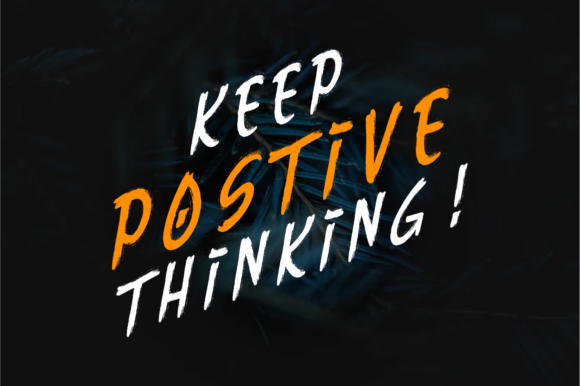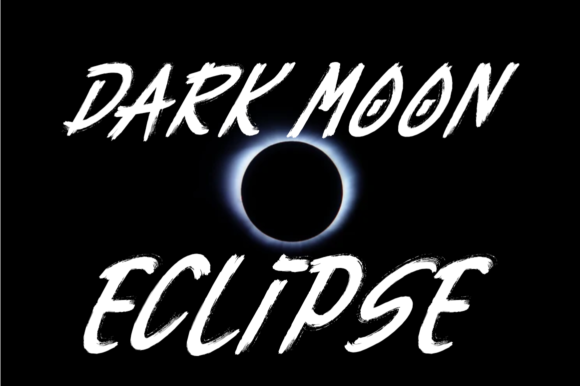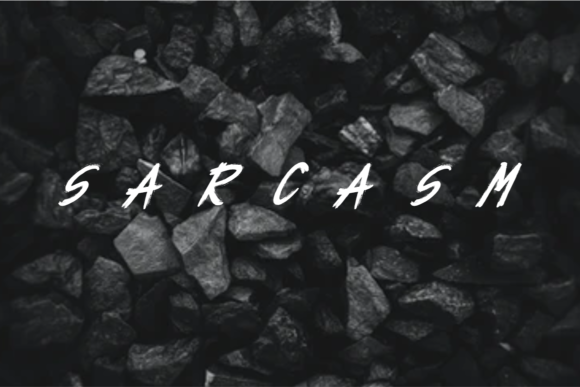
Introduction to Rebuilt Font
Have you ever stared at a blank canvas, trying to conjure up the perfect design to capture the essence of your creative project? For designers, this moment is all too familiar – the spark of inspiration that sets the wheels in motion. And for those looking to add an extra layer of personality to their work, there’s a game-changing font that’s sure to elevate their designs: the Rebuilt Font.
With its cool, brushed, urban display aesthetic, the Rebuilt Font is the perfect addition to any creative endeavor that requires a stronger personality. Whether you’re crafting posters, labels, apparel, or branding materials, this versatile font is sure to make a lasting impression. And the best part? It’s a high-quality, free download that can be easily integrated into your design resource arsenal.
For designers, the Rebuilt Font is a valuable asset that can breathe new life into even the most mundane projects. Its transparent background and sleek design make it the perfect complement to any creative vision. So why settle for a generic font when you can unleash the full potential of your design with the Rebuilt Font?
Key Features of Rebuilt Font
- Includes a transparent background option, allowing for seamless integration into various design settings.
- Features a large character set, including uppercase and lowercase letters, numbers, and punctuation marks.
- Designed at a high resolution of 300 DPI, ensuring crisp and clear typography in print and digital applications.
- Perfect for use in graphic design, web design, and other creative projects where a unique and stylish font is required.
- Includes a comprehensive character map, making it easy to access and use the various glyphs and symbols included in the font.
Honest Review: Rebuilt Font
As a designer, I’m always on the lookout for high-quality design resources to elevate my creative projects. Recently, I had the chance to try out the Rebuilt Font and here’s my honest review.
What works well: ✨ The font is available for free download, which is a huge plus. The transparent background makes it easy to customize and integrate into various design projects. The quality of the font is also top-notch, with crisp and clean lines that make it perfect for a wide range of applications.
- Customizable with various font styles
Limitations: ⚠️ While the font is high-quality, it may not be suitable for projects that require a specific, unique aesthetic. Additionally, the font may not be as extensive as some other font collections.
Overall impression: The Rebuilt Font is a solid addition to any designer’s toolkit. While it may have some limitations, its free availability and high quality make it a great resource for creative projects. I’d definitely recommend it to fellow designers looking for a reliable font solution.
Rebuilt Font
Getting the Most Out of Rebuilt Font
To get the most out of Rebuilt Font, use it in conjunction with a transparent background to create a high-quality design. This font is particularly useful for creative projects that require a unique and eye-catching font.
Rebuilt Font is commonly used in logos, brochures, and other marketing materials. Its high-quality design and transparent background make it an ideal choice for creative projects.
Yes, the Rebuilt Font comes with a transparent background, making it easy to use on any background image or design. This feature is particularly useful for designers who want to create visually appealing and professional-looking designs.